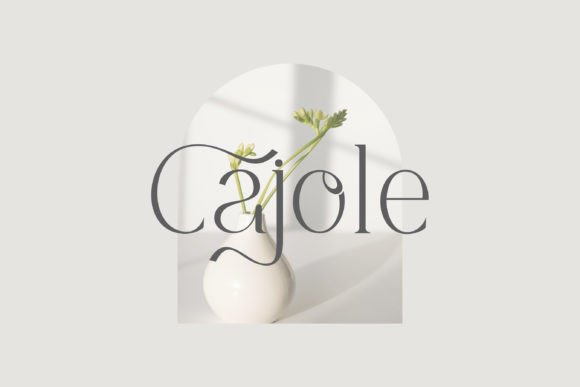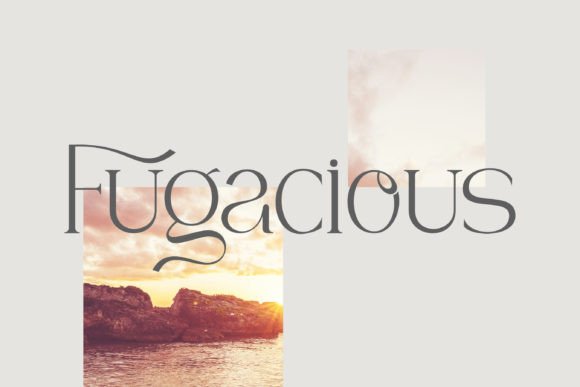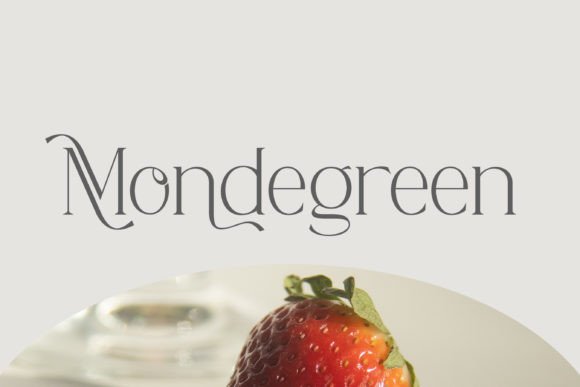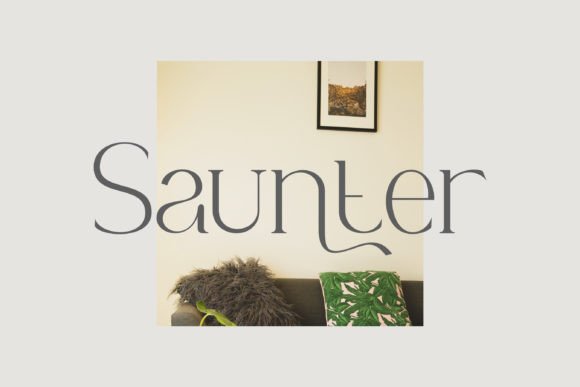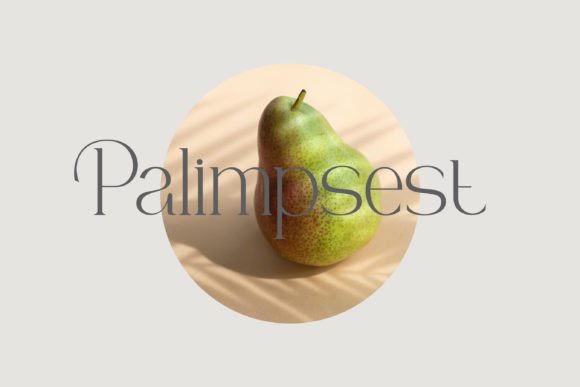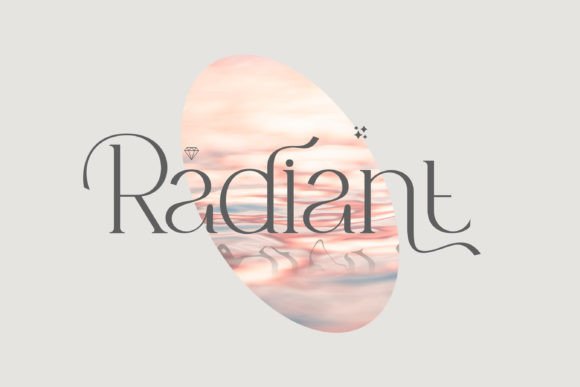
Introducing Gamora: The Modern Elegant Serif Font You Never Knew You Needed
Have you ever been in the middle of a design project, and suddenly, you’re stuck on finding the perfect font? I recall a recent experience where I was working on a client’s branding project, and I just couldn’t find a font that screamed elegance and modernity at the same time. That’s when I stumbled upon “Gamora,” a stunning serif font that has since become my go-to for projects that demand a touch of sophistication.
The Perfect Balance of Modernity and Elegance
“Gamora” is more than just a font; it’s a design statement. With its sleek lines, graceful serifs, and exquisite detailing, it embodies the perfect balance of modernity and elegance. This font is designed to convey contemporary grace and style with a touch of individuality, making it perfect for designers, crafters, and creative hobbyists looking to elevate their projects.
What I Love About Gamora ✨
- ✅ Refined Character: Each letter in “Gamora” is meticulously crafted to provide a refined and luxurious feel to your designs.
- ✅ Wealth of Alternatives and Ligatures: “Gamora” offers a variety of alternatives and ligatures, enhancing your design versatility and allowing for more creative freedom.
- ✅ Elegant Serif Design: The graceful serifs add a touch of classic elegance, making “Gamora” suitable for a wide range of design projects, from branding to editorial design.
- ✅ Modern Aesthetic: Despite its serif nature, “Gamora” maintains a modern look that fits well with contemporary design trends.
While “Gamora” is an excellent font, there are a few things to keep in mind:
- 🤔 Learning Curve: With a wealth of alternatives and ligatures comes a bit of a learning curve. It might take some time to get familiar with all the features “Gamora” has to offer.
The Story Behind Gamora
The creation of “Gamora” was inspired by a desire to blend traditional serif elements with modern design sensibilities. The designer aimed to craft a font that could serve as a bridge between past and present, offering a unique aesthetic that stands out in the world of typography. Whether it’s used for branding, editorial design, or personal projects, “Gamora” is designed to leave a lasting impression.
Q: What makes Gamora a modern elegant serif font?
A: “Gamora” combines sleek lines, graceful serifs, and exquisite detailing to create a font that embodies both modernity and elegance. Its refined character and wealth of alternatives and ligatures make it versatile for various design projects.
Q: Is Gamora suitable for body text?
A: While “Gamora” is elegant and modern, its legibility for long-form body text may vary depending on the size and context. It’s often best used for headings and titles where its unique features can shine. For body text, consider pairing it with a more traditional serif font for better readability.